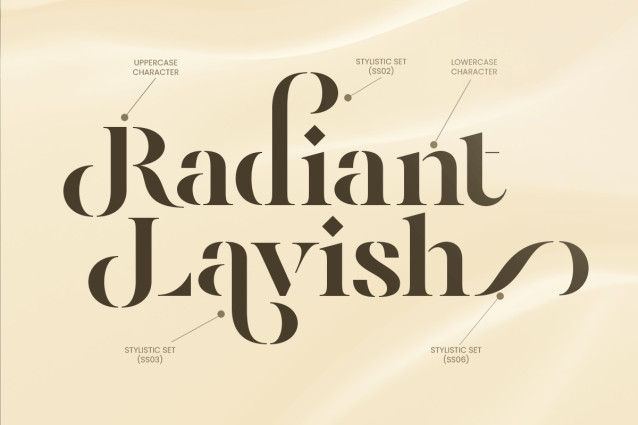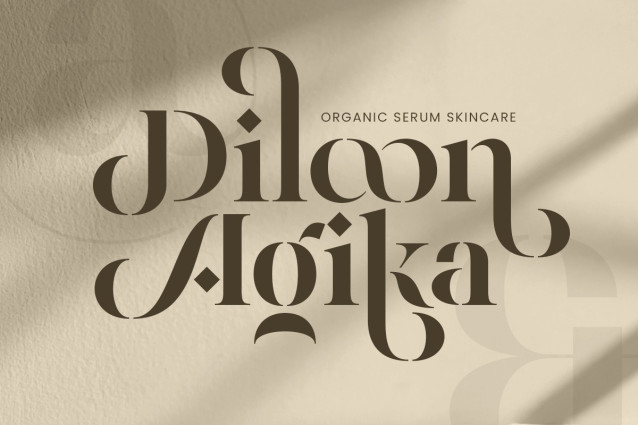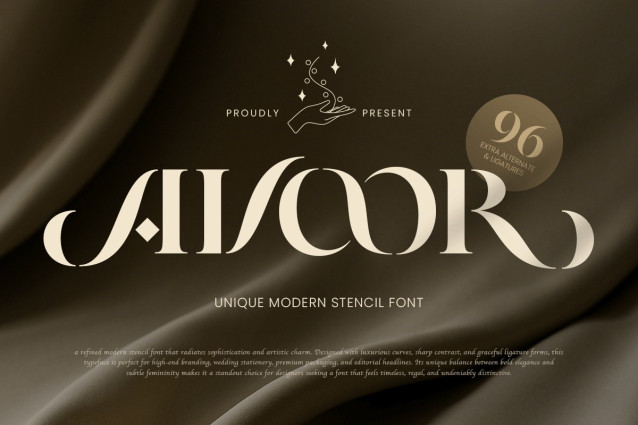
Avoor Font
Avoor Font is a unique classy stencil font designed to bring a refined artistic touch to modern branding. With its luxurious serif structure and carefully crafted stencil cuts, this typeface creates a bold, sophisticated, and memorable visual identity ideal for high-end brands and editorial layouts.
The distinctive stencil gaps give AVOOR a contemporary sculpted look — making it perfect for logos, fashion campaigns, magazine headers, packaging, and premium product branding. Its elegant balance between classic forms and modern experimental cuts delivers a striking combination of refinement and creativity.
Whether you’re building a fashion identity, designing luxury marketing visuals, or creating expressive editorial compositions, AVOOR brings character, elegance, and strong personality to every design.